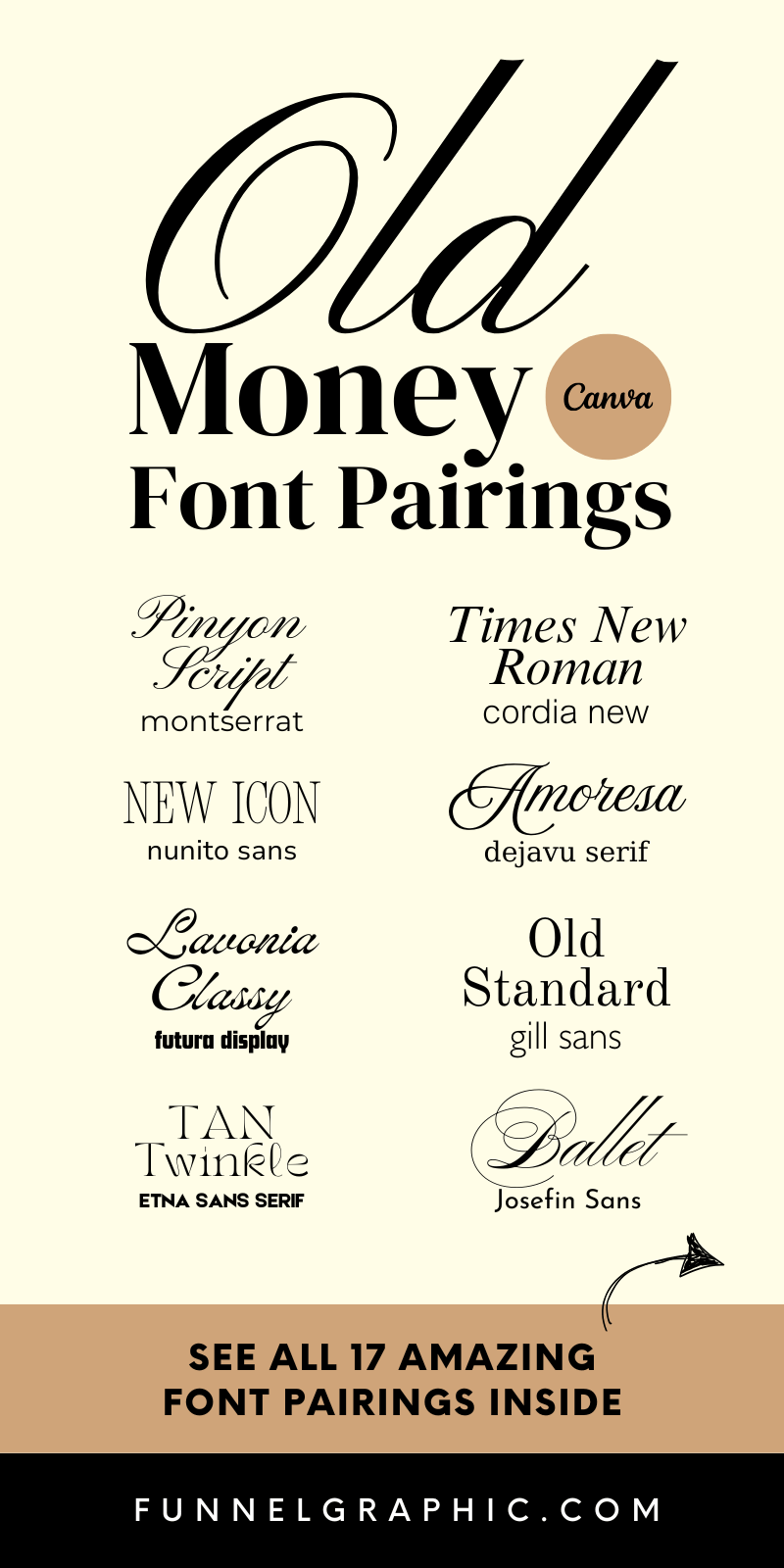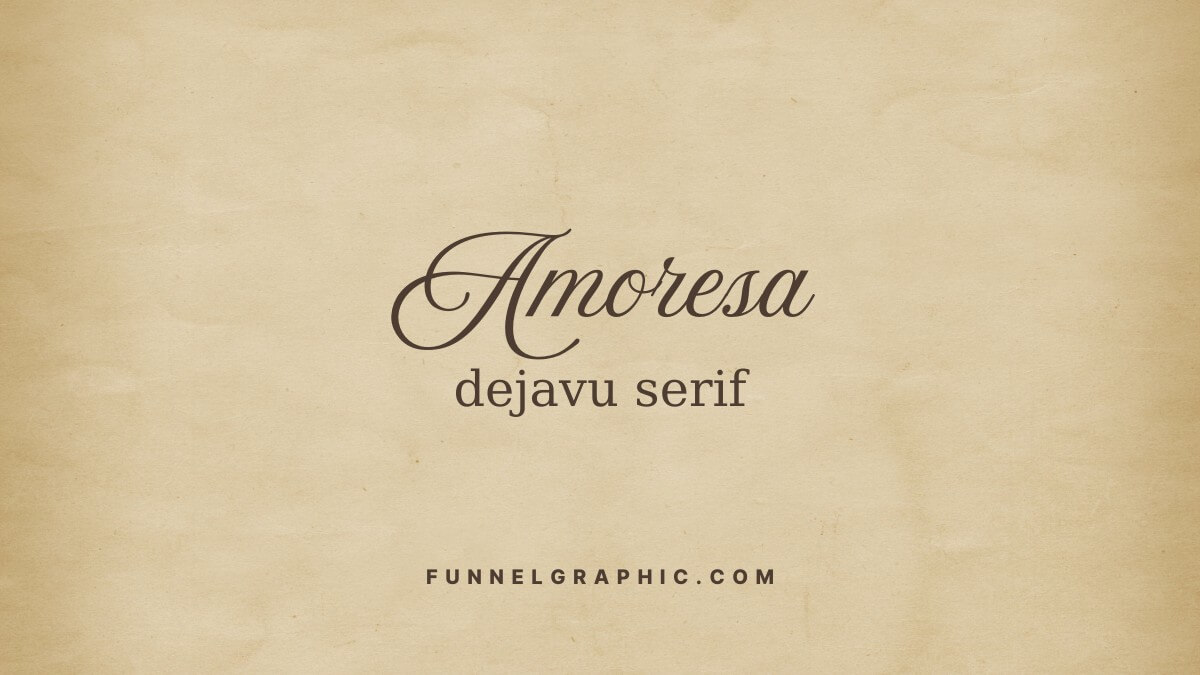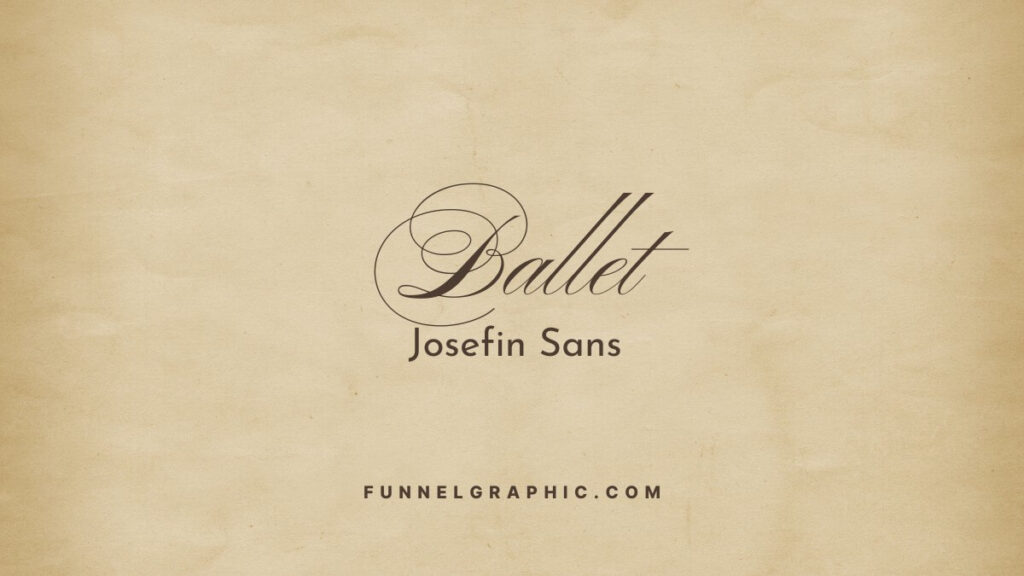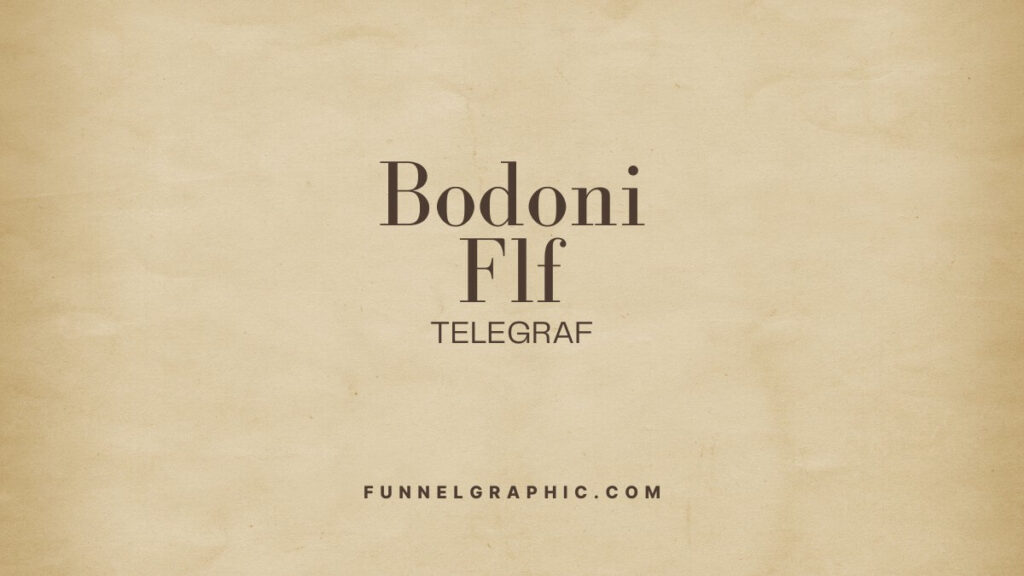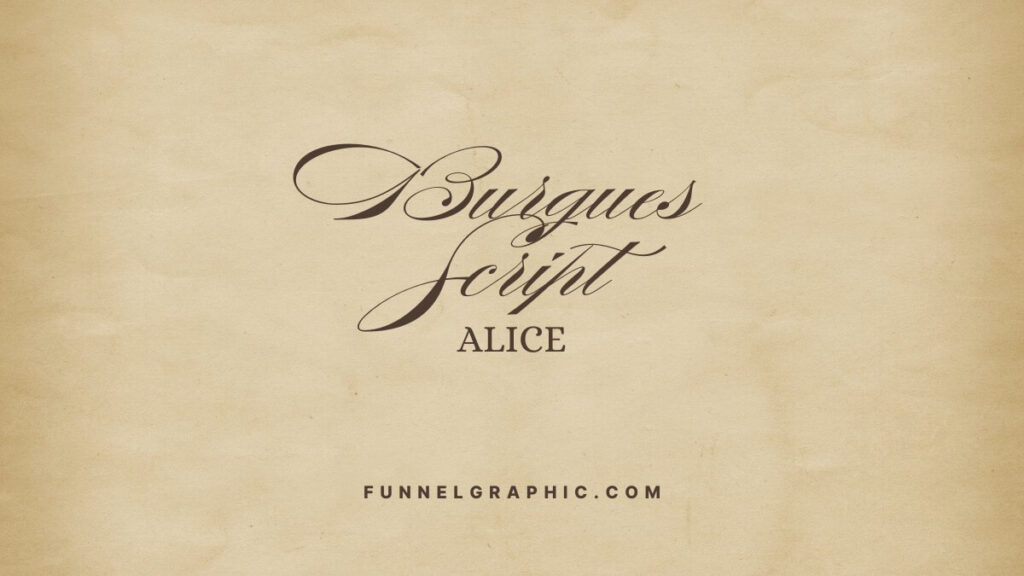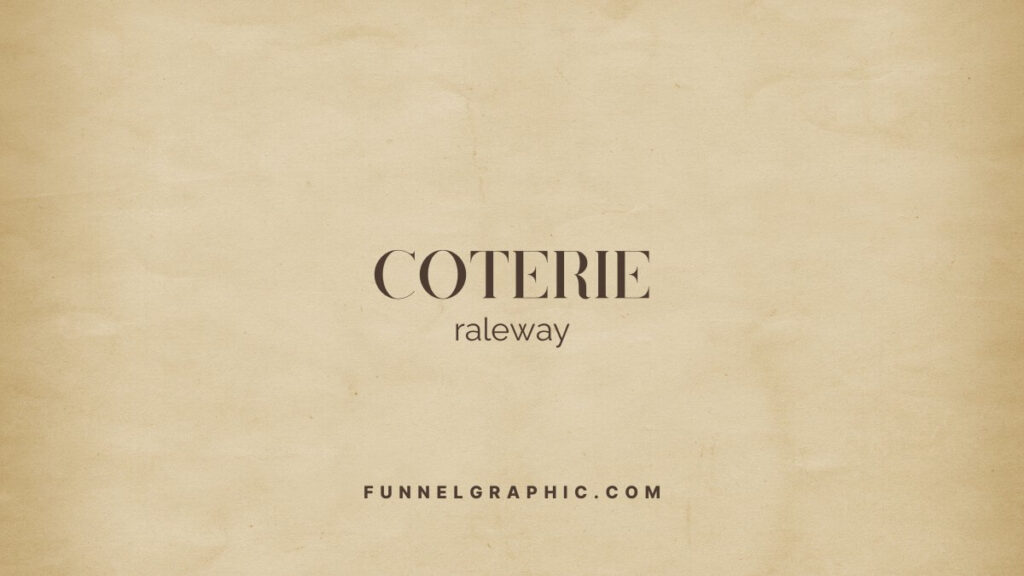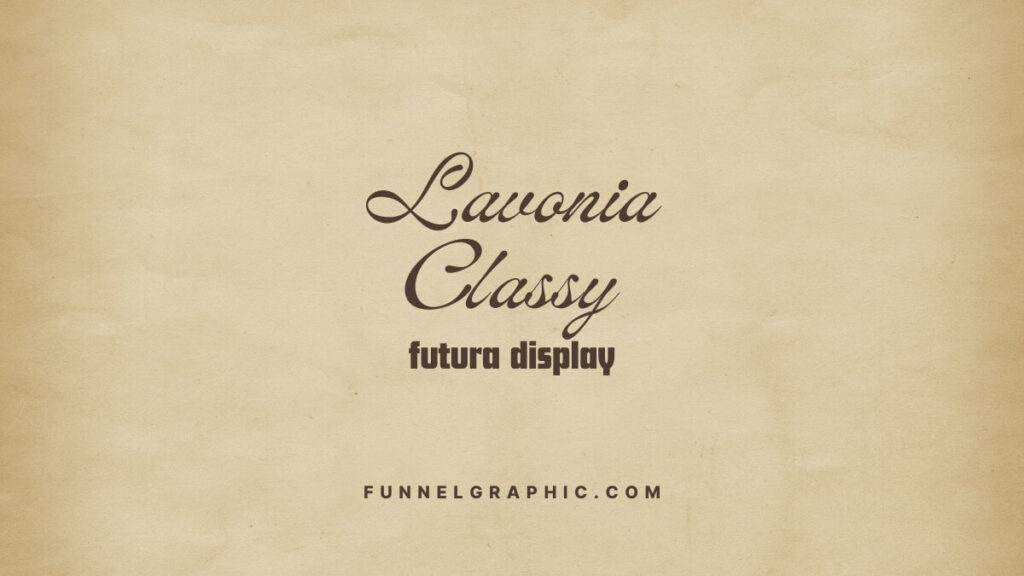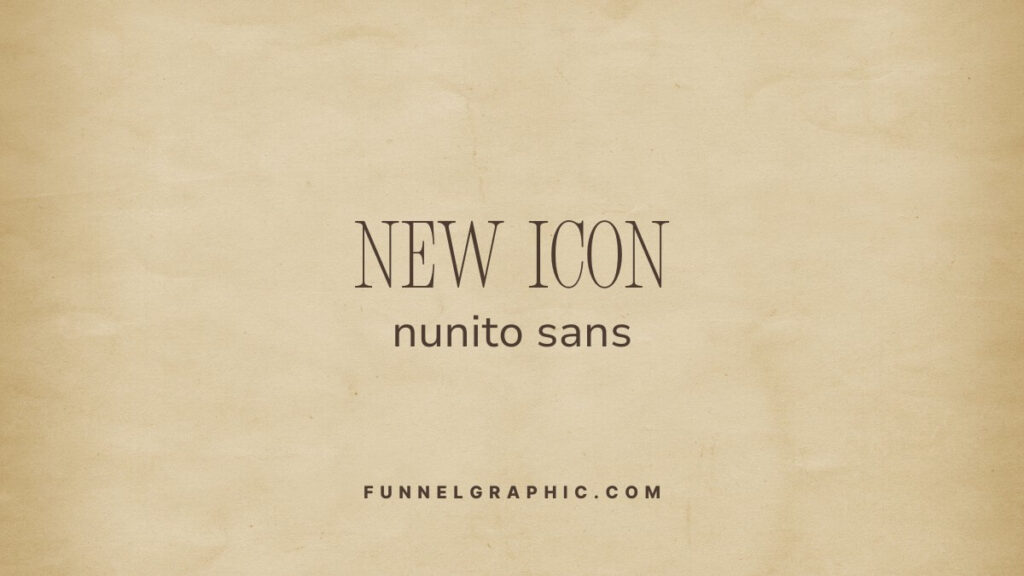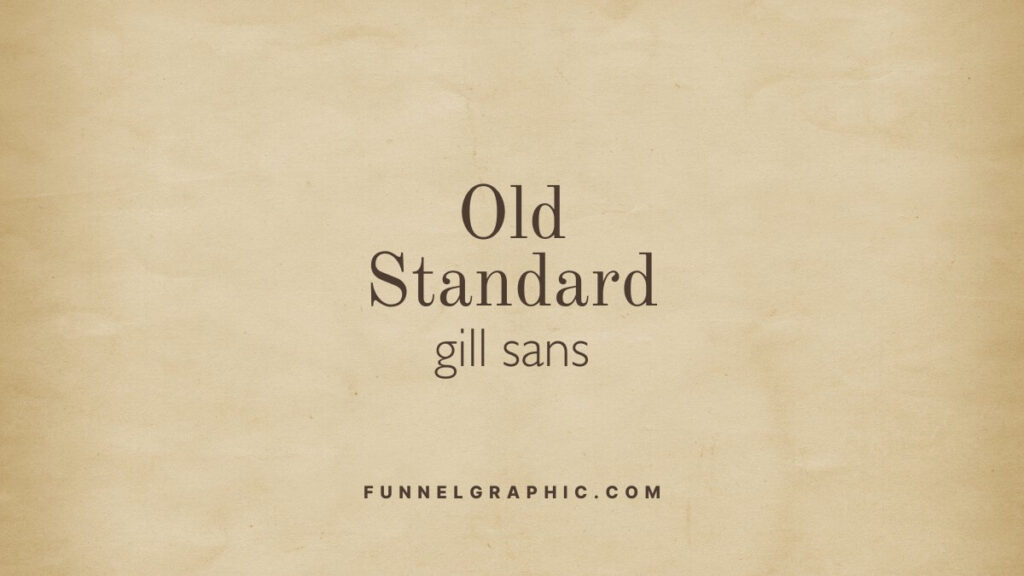
17 Old Money Font Pairing Ideas In Canva
If you are here, I believe you’re into the Old Money Aesthetic dreamy font pairings. But what exactly is it? And why does it feel like a secret code whispered by people who know how to tie a perfect silk scarf?
Stick around, because I’m about to show you exactly how to capture that Old Money magic in your designs. No trust fund required.
The Allure of the Old Money Aesthetic
Picture this: crisp white linens, perfectly tailored blazers, vintage watches, and that timeless, effortless vibe that says, “I’ve had this forever… because I have.”
Now add a sprinkle of The Parent Trap (yes, the Lindsay Lohan version) with its sun-soaked Napa Valley scenes, classic polo shirts, and charming estates.
That’s the Old Money Aesthetic in a nutshell. The sophistication without shouting, elegance without trying too hard.
In design, this aesthetic translates into clean, refined visuals: muted color palettes, luxurious serif fonts paired with simple sans-serifs, and layouts that breathe.
It’s not about being flashy; it’s about being timeless. Think less “new money glitz” and more “grandma’s heirloom pearl necklace that never goes out of style.”
So, if you are looking for Old Money font pairings in Canva for branding, social media posts, or personal projects, you’ve got the right style: The classic, understated charm.
You want your designs to whisper, not scream. And the right font pairing? That’s the secret sauce, and here they are:
1. Amoresa + Dejavu Serif
2. Ballet + Josefin Sans
3. Bodoni FLF + Telegraf
4. Burgues Script + Alice
5. Coterie + Raleway
6. Lavonia Classy + Futura Display
7. New Icon + Nunito Sans
8. Old Standard + Gill Sans
9. Pinyon Script + Montserrat
10. Playfair Display SC + Cormorant Garamond
11. Safira March + Proxima Nova
12. Sloop Script Pro + League Spartan
13. Symphony + Tenor Sans
14. Tan Pearl + Quicksand
15. Tan Twinkle + Etna Sans Serif
16. The Seasons + Poppins
17. Times New Roman + Cordia New
Wrapping It Up: Old Money, Timeless Charm
At its core, the Old Money Aesthetic isn’t just about style—it’s an attitude. It’s the art of making simplicity look luxurious and timeless without trying too hard.
Whether you’re curating your brand, designing a social media post, or just daydreaming about owning a vineyard in Napa, embracing this aesthetic adds a touch of quiet sophistication.
Remember, it’s not about where you come from; it’s about how you present yourself (and your designs). So go ahead, pair those fonts like a pro, choose those muted tones, and channel your inner Parent Trap vibes. Because with the right design choices, anyone can capture that Old Money elegance—no vintage yacht required.